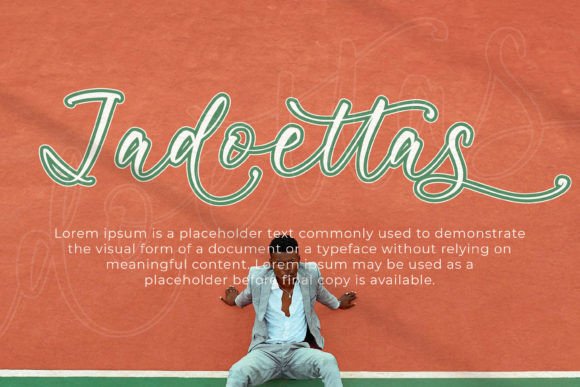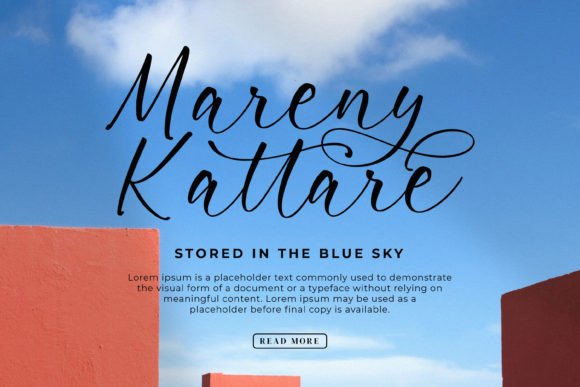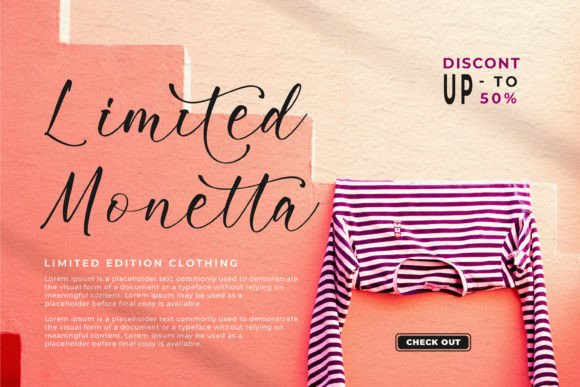
Introduction to Rayetta Wegatta Font
Rayetta Wegatta β Luxury Script Font, from Integritype Studio, is a premium Luxury Script Font, perfect for any project like: logos, branding projects, homewares designs, product packaging, mugs, quotes, posters, shopping bags, t-shirts, covers books, business cards, invitation cards, greeting cards, labels, photography, watermarks, special events and all your other luxury projects that require a premium taste.
Key Features of Rayetta Wegatta Font